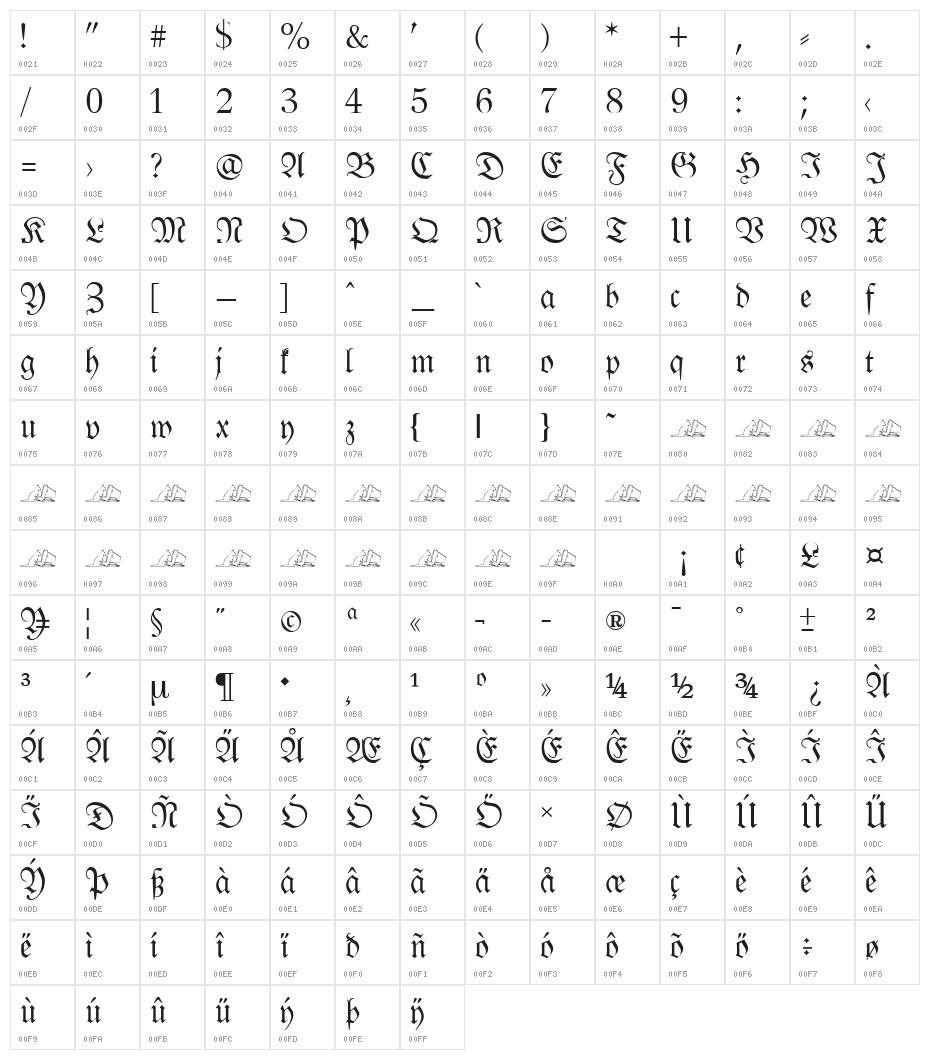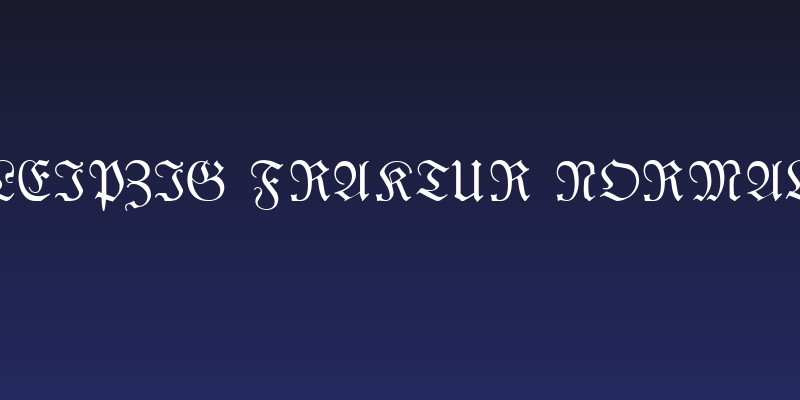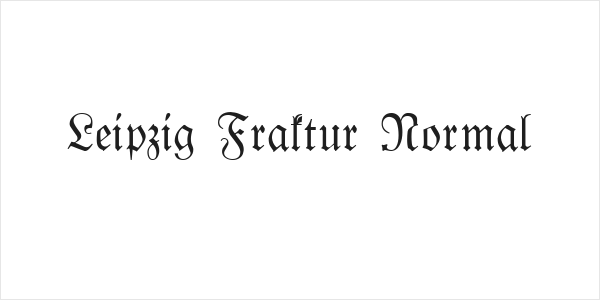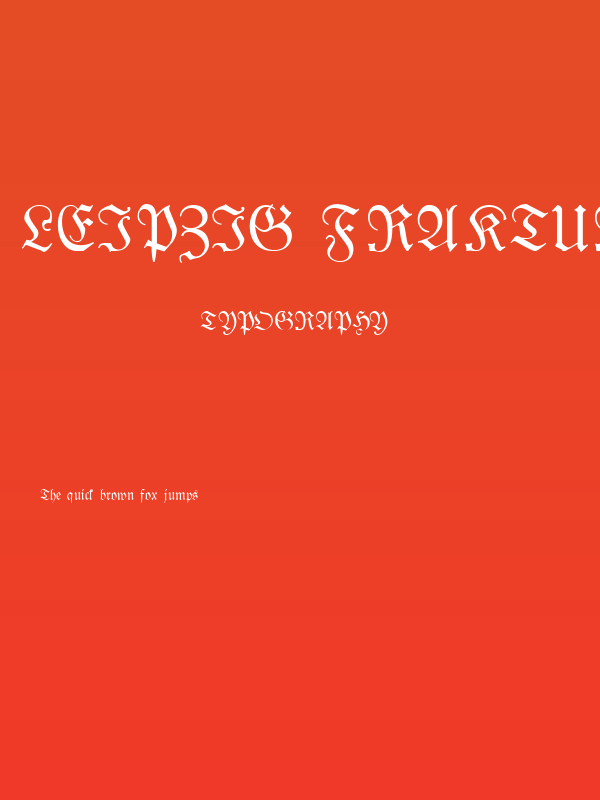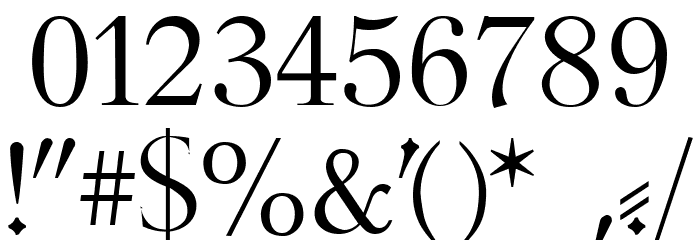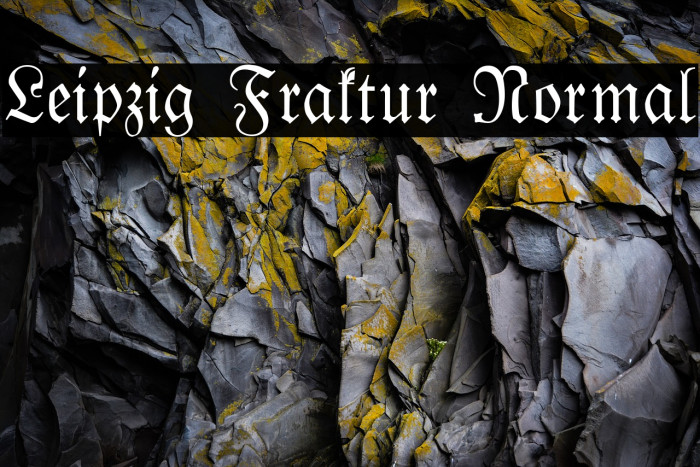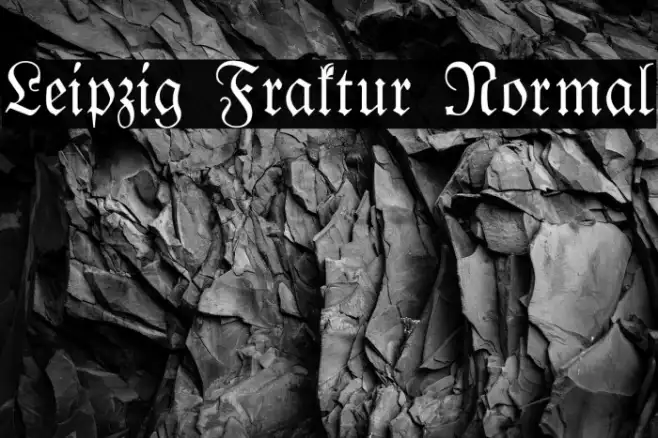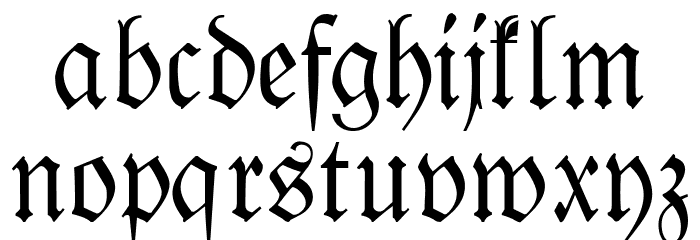
Leipzig Fraktur Normal Font
Leipzig Fraktur Normal Description
This font exhibits a traditional and ornate style characteristic of blackletter typefaces. The letters are intricately designed with sharp, angular strokes and elaborate flourishes, giving it a historical and formal appearance. The uppercase letters are particularly decorative, with unique curves and pointed edges that enhance its gothic aesthetic. The lowercase letters maintain a consistent style, with a slightly more restrained ornamentation. The numerals are bold and clear, matching the overall theme of the font. Special characters are equally detailed, ensuring a cohesive look across all glyphs.
| Use Case | Headlines, Logos, Decorative text |
| Proposed Projects | Ideal for historical documents, certificates, wedding invitations, and branding that requires a classic and formal touch. |